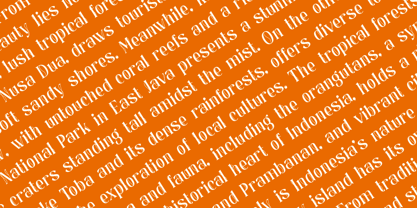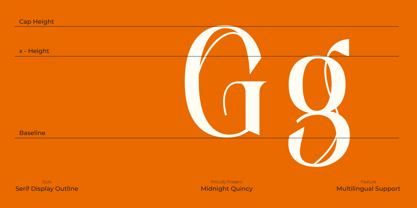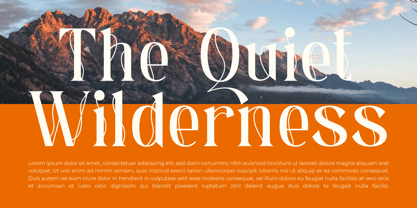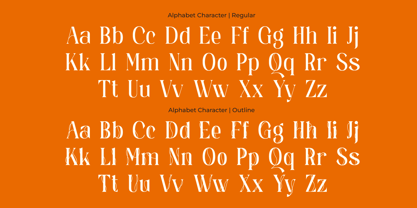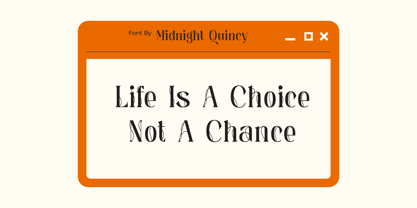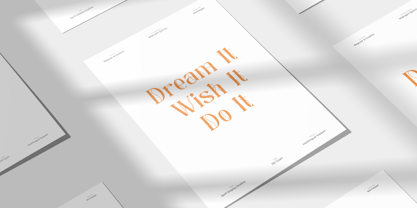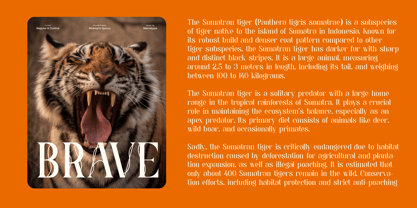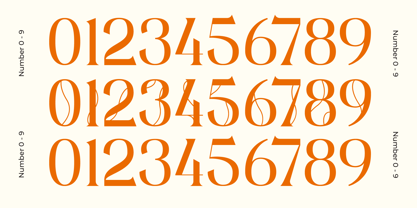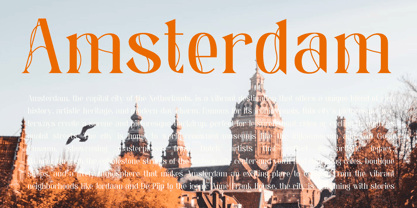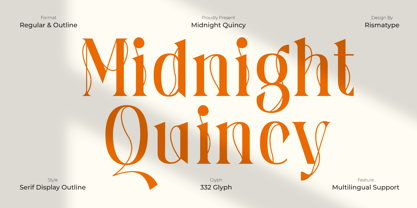
Midnight Quincy
# 🔷 Midnight Quincy
Category: Serif Display Outline Typeface (Elegant Silhouettes with Artistic Poise)
Tagline: 🌙 Elegant | 🖋️ Expressive | 🌀 Dramatic | 🎨 Timeless
## 🌌 Where Timeless Class Meets Artistic Edge
Need a typeface that speaks sophistication with a twist?
Meet Midnight Quincy, a serif display outline font crafted to captivate. With its graceful contours, stylish outlines, and high-contrast form, this typeface brings dramatic flair to any design — ideal for fashion editorials, luxury branding, and standout titles.
## ✨ Key Features
* 🌙 Elegant outline strokes with balanced structure and expressive curves
* 🖋️ High-contrast letterforms for impactful headlines and editorial finesse
* 🔡 Includes stylish alternates and graceful ligatures
> Midnight Quincy delivers timeless charm through elegant outlines — made to impress with grace, clarity, and bold personality.